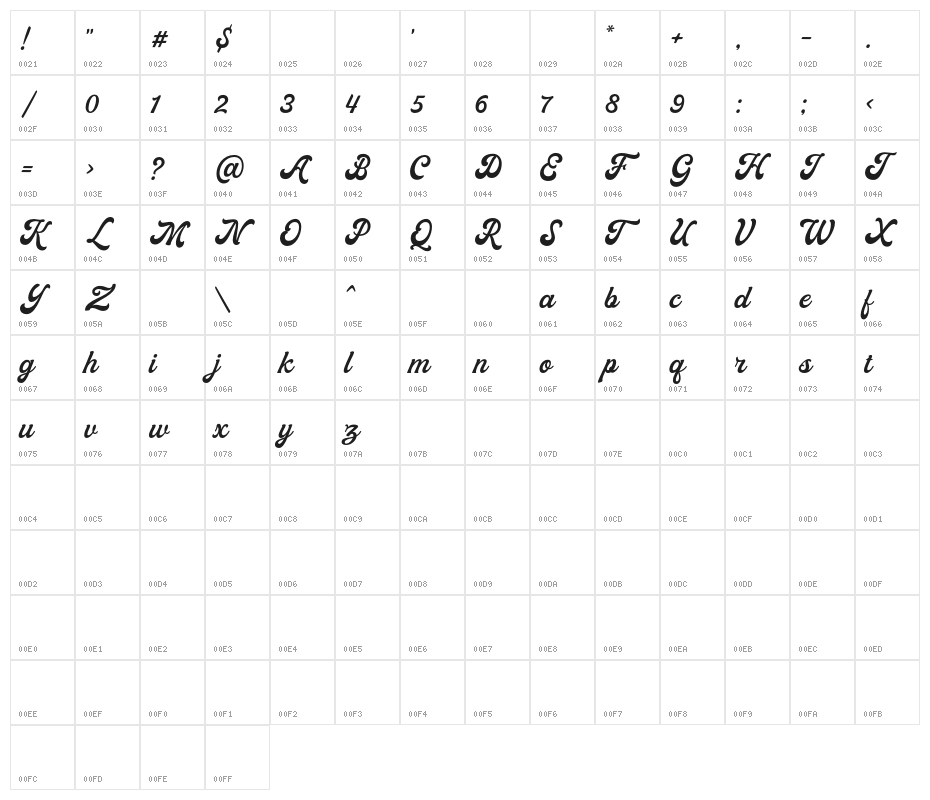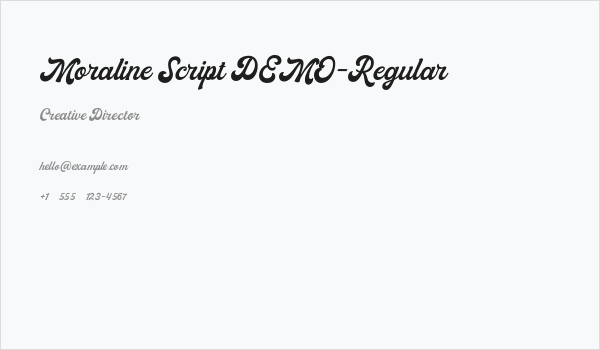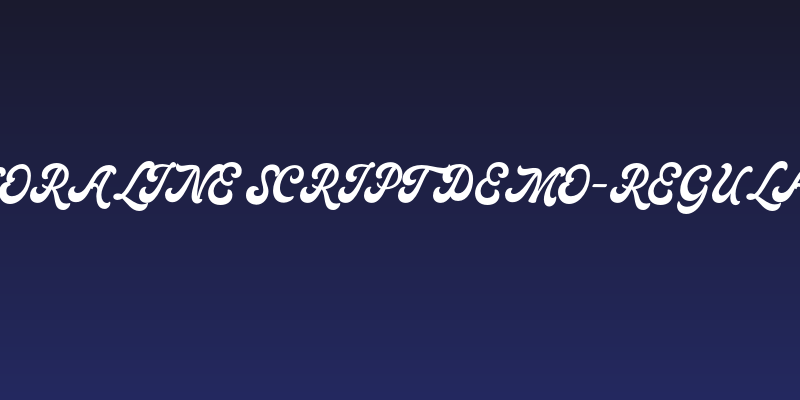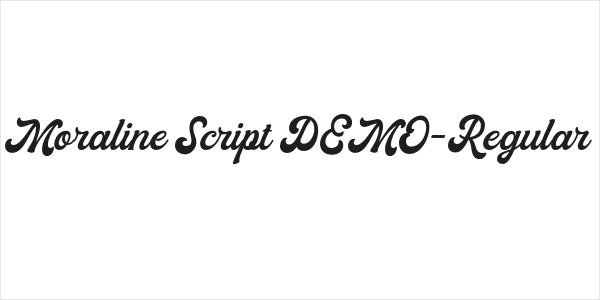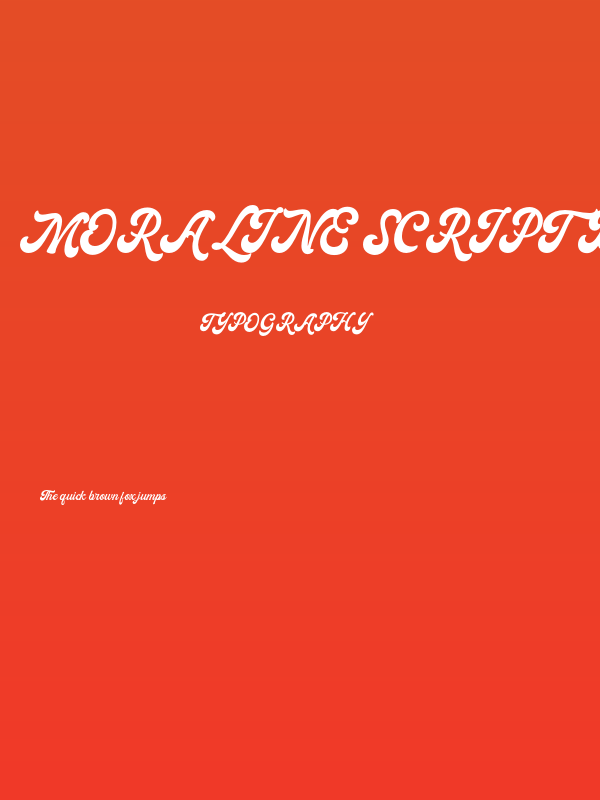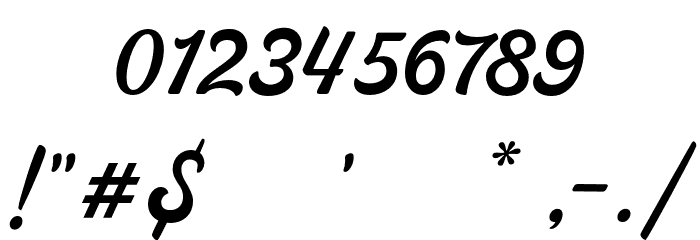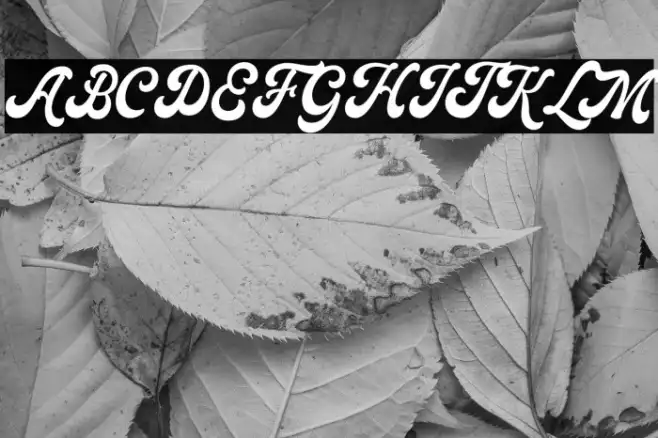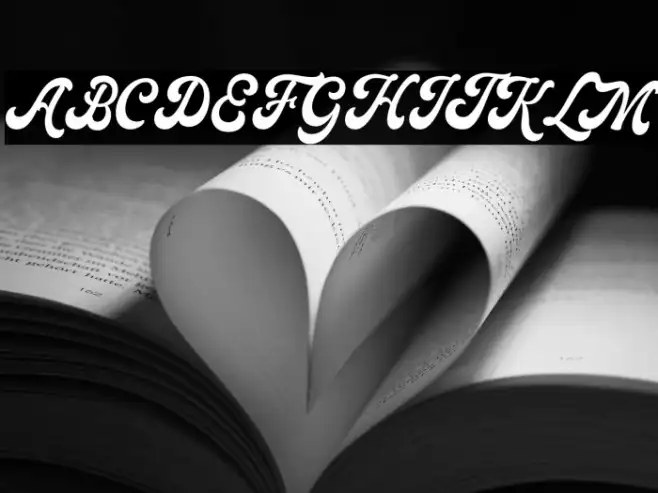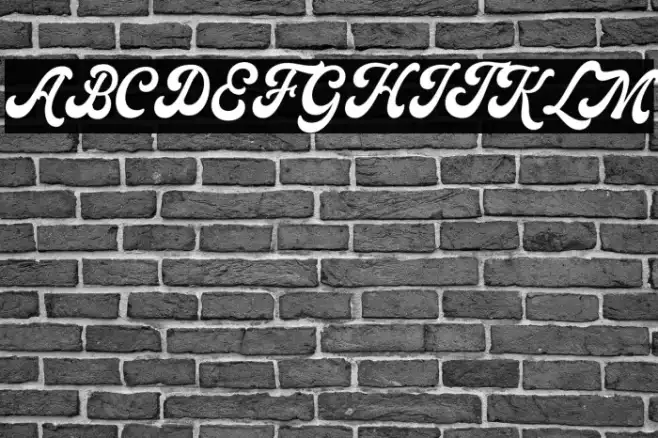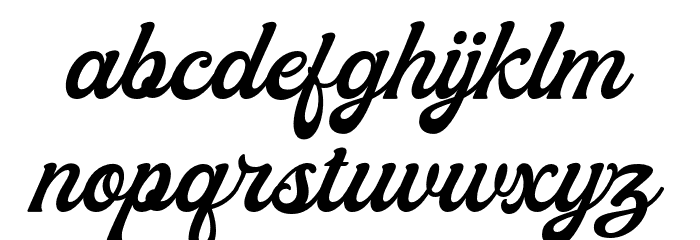
Moraline Script DEMO-Regular Font
Moraline Script DEMO-Regular Description
This font features a flowing, cursive style that exudes elegance and sophistication. Each character is crafted with smooth, continuous strokes that mimic the fluidity of handwriting. The uppercase letters are bold and prominent, while the lowercase letters maintain a graceful and consistent flow. The numerals are designed to complement the script style, maintaining readability while adhering to the overall aesthetic. Special characters are integrated seamlessly, ensuring versatility in various design contexts. The font's overall appearance is both classic and decorative, making it suitable for projects that require a touch of refinement.
| Proposed Projects | Ideal for wedding invitations, greeting cards, branding, and elegant packaging designs. |